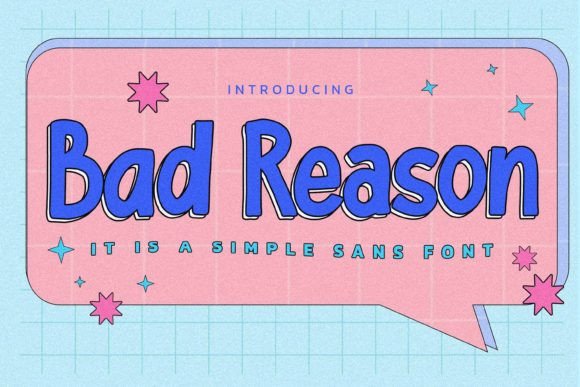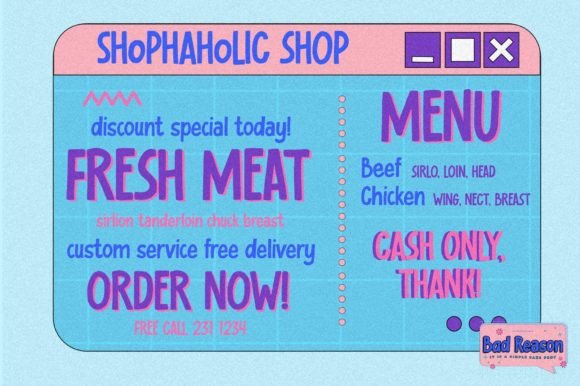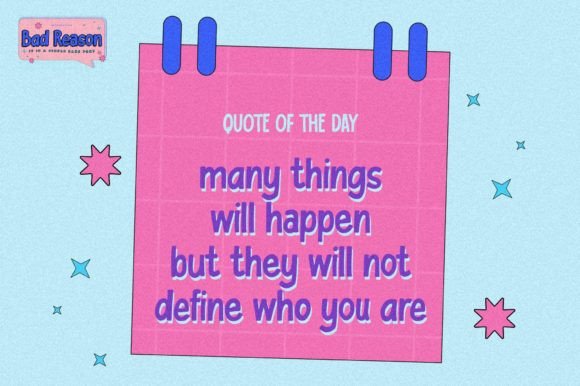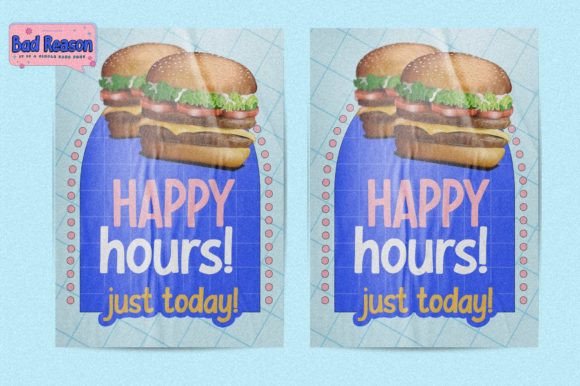
Bad Reason Font: A Playful Sans Serif for Cute DIY & Craft Projects!
About the Bad Reason Font
The wait is over! The incredible Bad Reason Font is now available for your design toolkit. Bad Reason is a Simple Sans Font with a natural feel. This handmade font will give your design a beautiful natural touch. It is perfect for any design project such as invitations, logos, book covers, crafts, or any design purposes.
It will also fulfill your design needs for quotes, sports themes, logotypes, wordmarks, etc.
Bad Reason’s handcrafted feel makes it ideal for headlines, short text blocks, and branding applications where a touch of casual authenticity is desired. It excels in logo design, short quotes, and packaging where its slightly irregular forms add visual interest. However, its less-than-perfect uniformity makes it unsuitable for body text or UI elements requiring high readability.
The font projects a friendly, approachable personality, leaning slightly towards the playful. To maintain visual balance, pair it with a clean sans-serif like Lato for a modern feel or a classic serif like Garamond for a touch of elegance. Consider a script font like Great Vibes for invitations or playful branding, but use sparingly to avoid overwhelming the design.
For a more contemporary aesthetic, geometric sans-serifs such as Montserrat can provide a strong counterpoint to Bad Reason’s organic forms. Ultimately, the best pairing will depend on your specific design goals, but aiming for a contrast in formality and structure will enhance the overall impact.